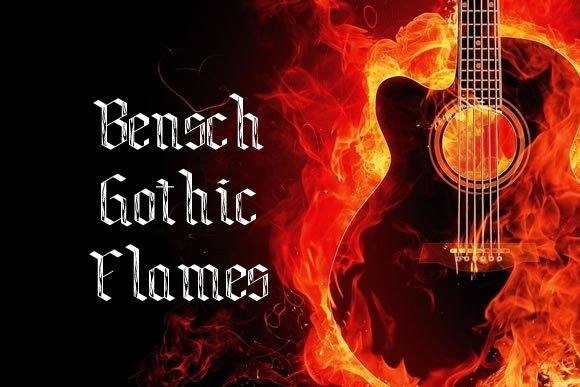
The Spark that Ignites Design Inspiration
Have you ever been brainstorming a new project, and suddenly, a burst of creativity strikes? The ideas start flowing, and you can’t wait to bring them to life. This is exactly what happens when designers discover the perfect font to match their vision. For many, that font is the Bensch Gothic Flames Font, created by the talented Jeff Bensch.
This striking font is designed to evoke the intense, fiery passion of Gothic architecture, but with a modern twist. Its purpose is to add a touch of drama and elegance to any design project, from logos and posters to websites and social media graphics. What makes the Bensch Gothic Flames Font truly valuable for designers is its versatility and commercial use allowance, making it an ideal choice for both personal and professional projects.
Bensch Gothic Flames Font Key Features
- Unique Characteristics: The font features intricate gothic flames designs, adding a unique and dramatic touch to any text-based content.
- Font Style: The font is a combination of gothic and script styles, making it suitable for a wide range of applications, from formal to decorative.
Bensch Gothic Flames Font Review
Overall, I think the Bensch Gothic Flames Font is a unique and captivating font that can add a touch of elegance and sophistication to your designs. ✨ The bold and dramatic flair of this font makes it perfect for headings, titles, and even some body text.
- The intricate details and ornate flourishes of the font make it perfect for creating a sense of drama and grandeur.
- The font’s Gothic-inspired design gives it a classic and timeless feel that can be used in a variety of design contexts.
- The font is highly legible, even at smaller font sizes, making it a great choice for body text.
However, there are a few limitations to consider: ⚠️ The font may not be the best choice for designs that require a clean and minimalist aesthetic. Additionally, the font’s dramatic flair may be overwhelming in some contexts, so be sure to use it judiciously.
Overall, I would give the Bensch Gothic Flames Font 4 out of 5 stars. While it may not be the best choice for every design project, it’s a great option for those looking to add a touch of drama and sophistication to their work.
Tips for Getting the Most Out of the Bensch Gothic Flames Font
For optimal results, use the Bensch Gothic Flames Font in bold or italic styles to add emphasis to your text. You can also combine it with other fonts to create a unique and visually appealing design.
The Bensch Gothic Flames Font is ideal for use in titles, headings, and other display text. It’s also great for creating a sense of drama and flair in designs such as posters, flyers, and brochures.